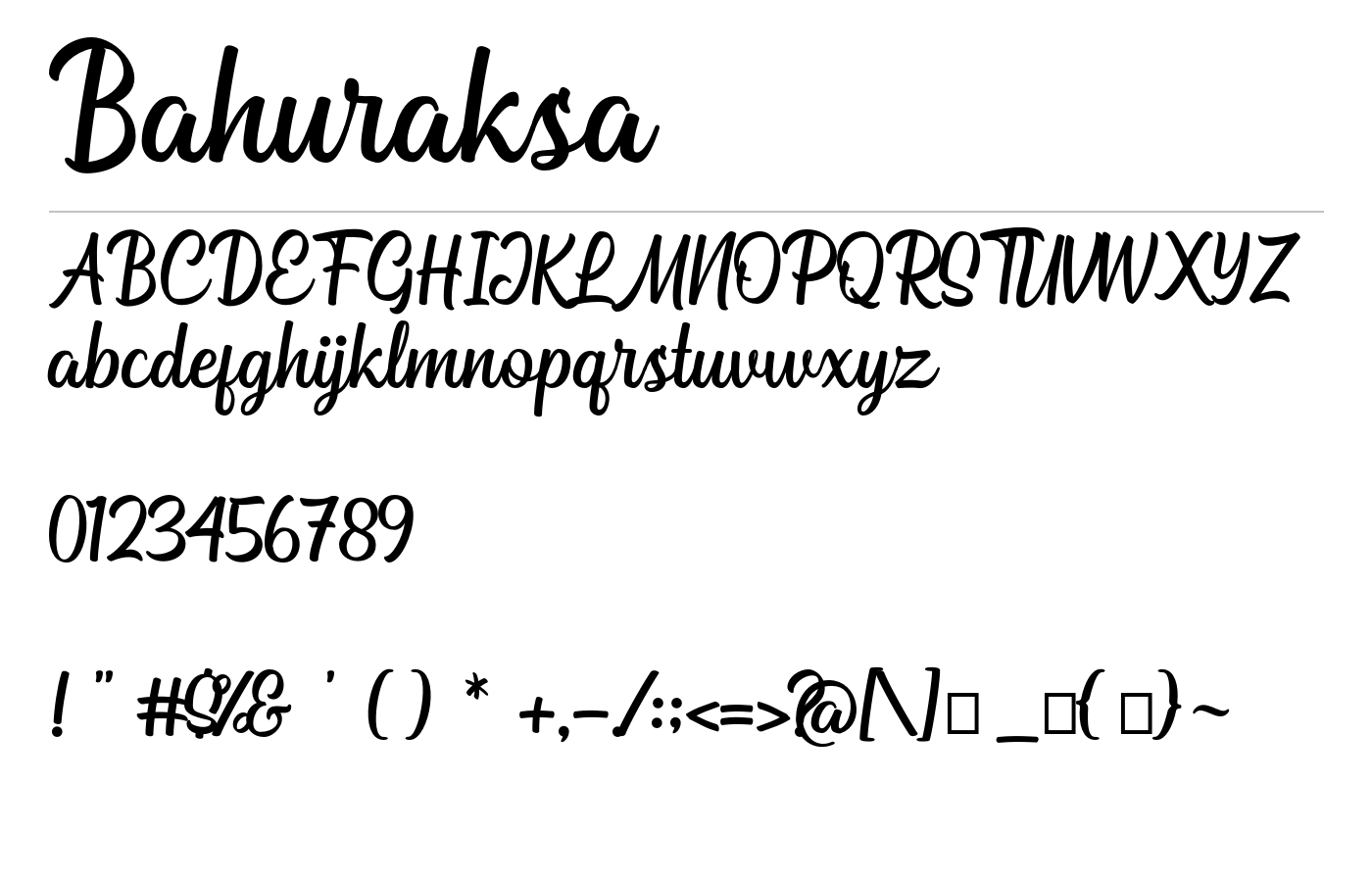
Bahuraksa is a stylish script font with a smooth, flowing design that feels friendly and approachable. Its medium weight and moderately tall x-height give it good readability while maintaining casual elegance, making it ideal for branding, invitations, and creative headlines. This font’s lively, handwritten character brings a warm, personal touch to projects needing a charming yet professional look.
Bahuraksa Font
About Bahuraksa Font